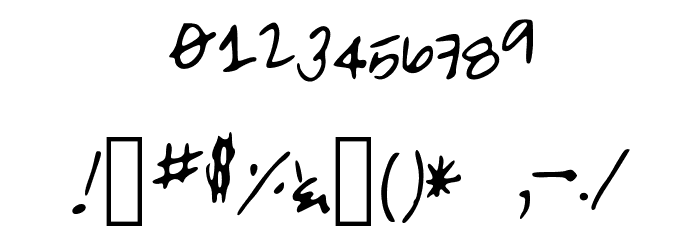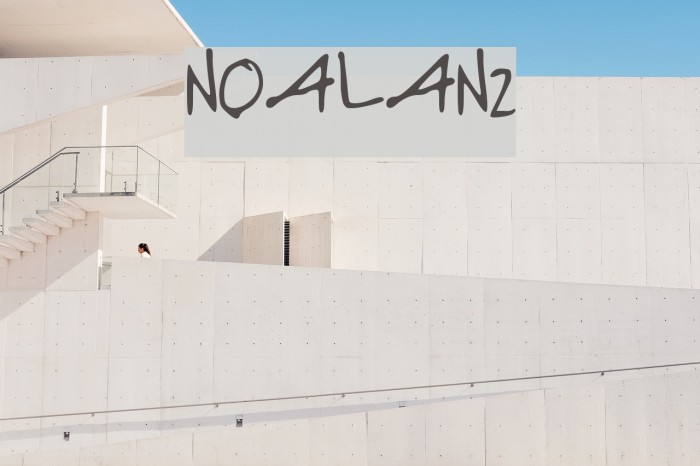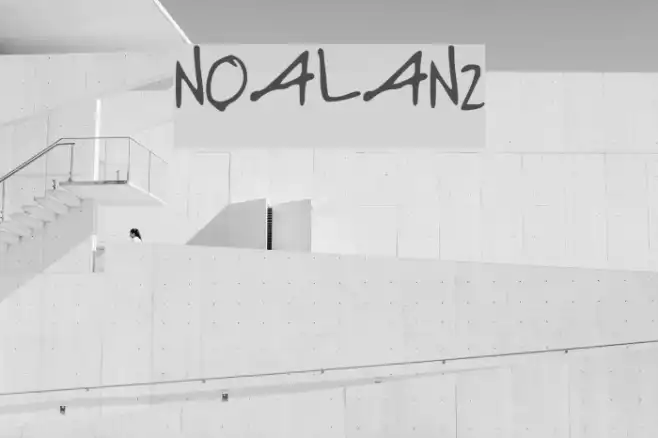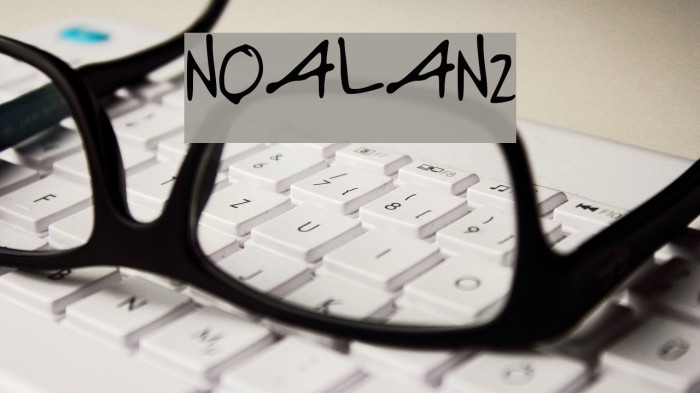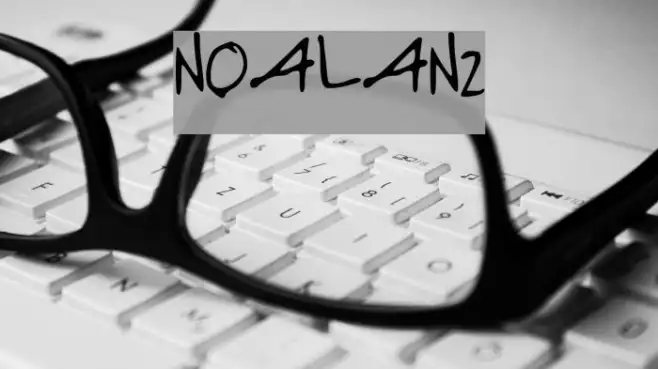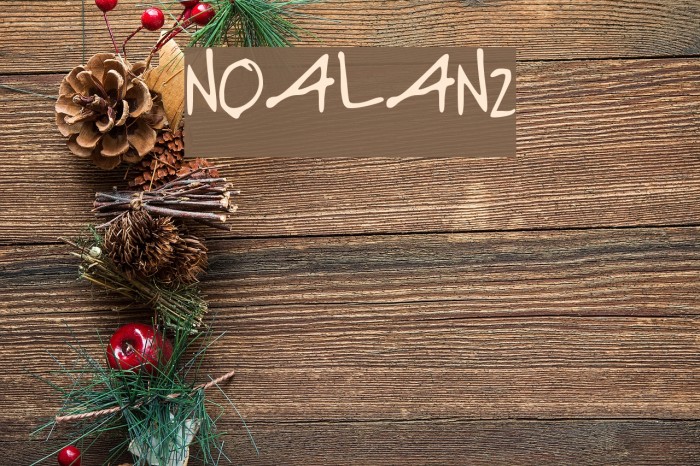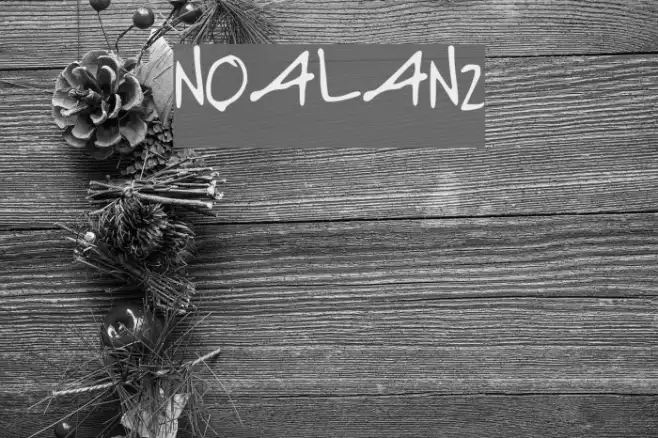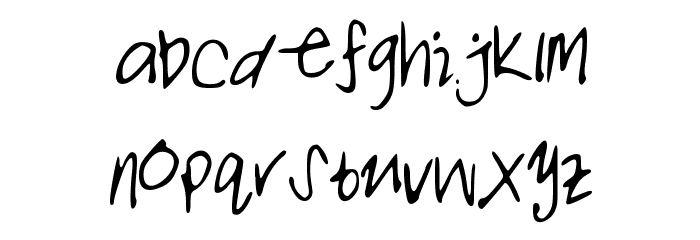
NOALANI Font
NOALANI Description
This font exudes a lively and dynamic handwritten style, characterized by its fluid and organic strokes. The letters are slightly slanted, giving a sense of motion and informality. The uppercase letters are bold and expressive, while the lowercase letters maintain a consistent flow, enhancing readability. The numbers and special characters follow the same energetic style, making them stand out. This font is perfect for projects that require a personal touch or a creative flair, such as invitations, greeting cards, or artistic branding.